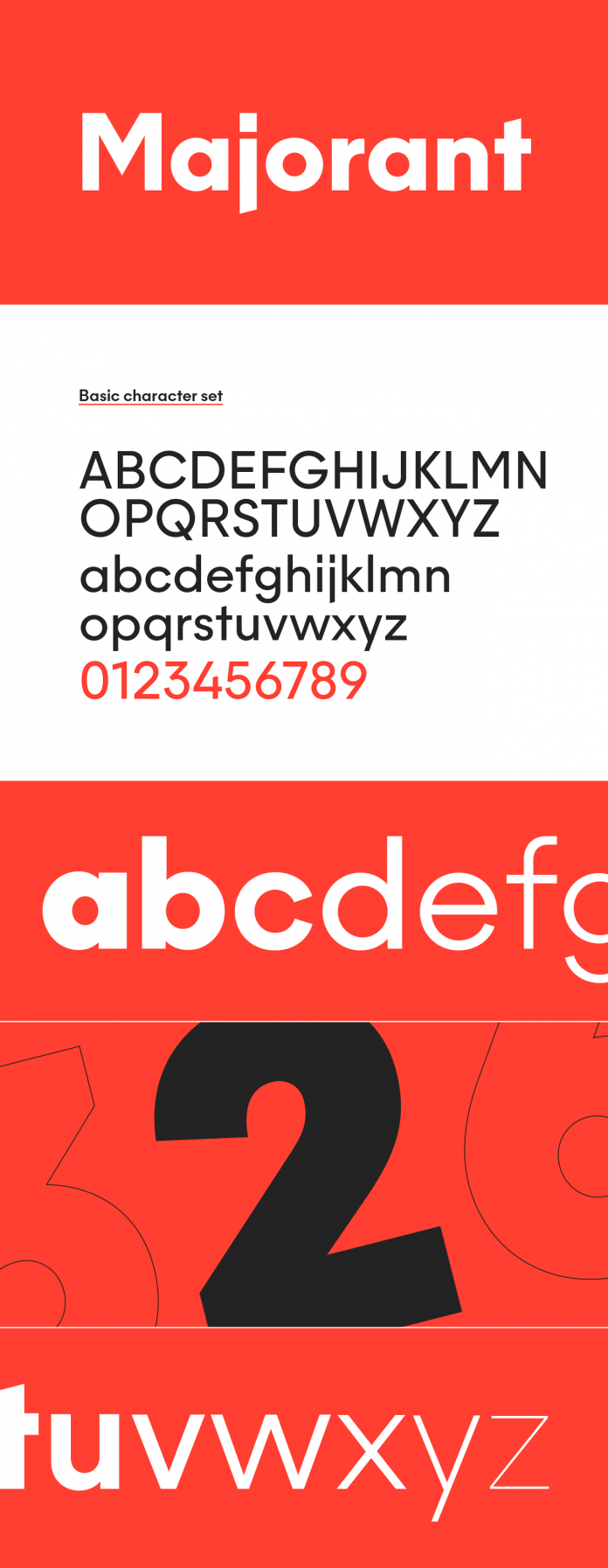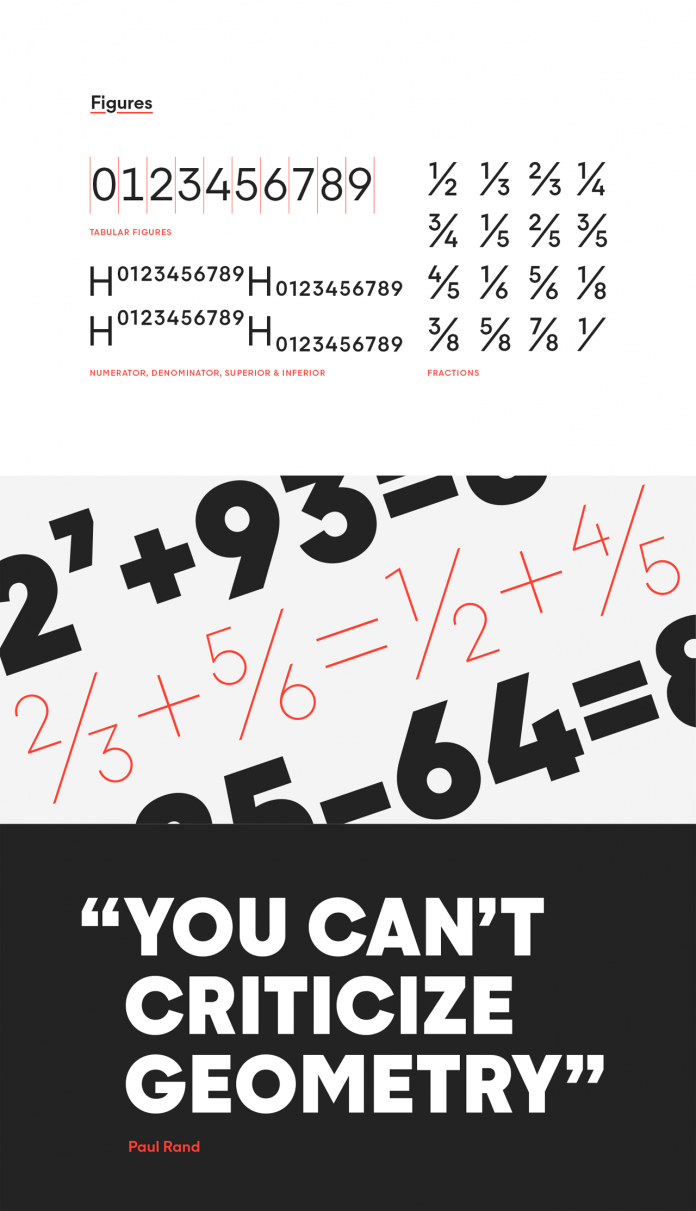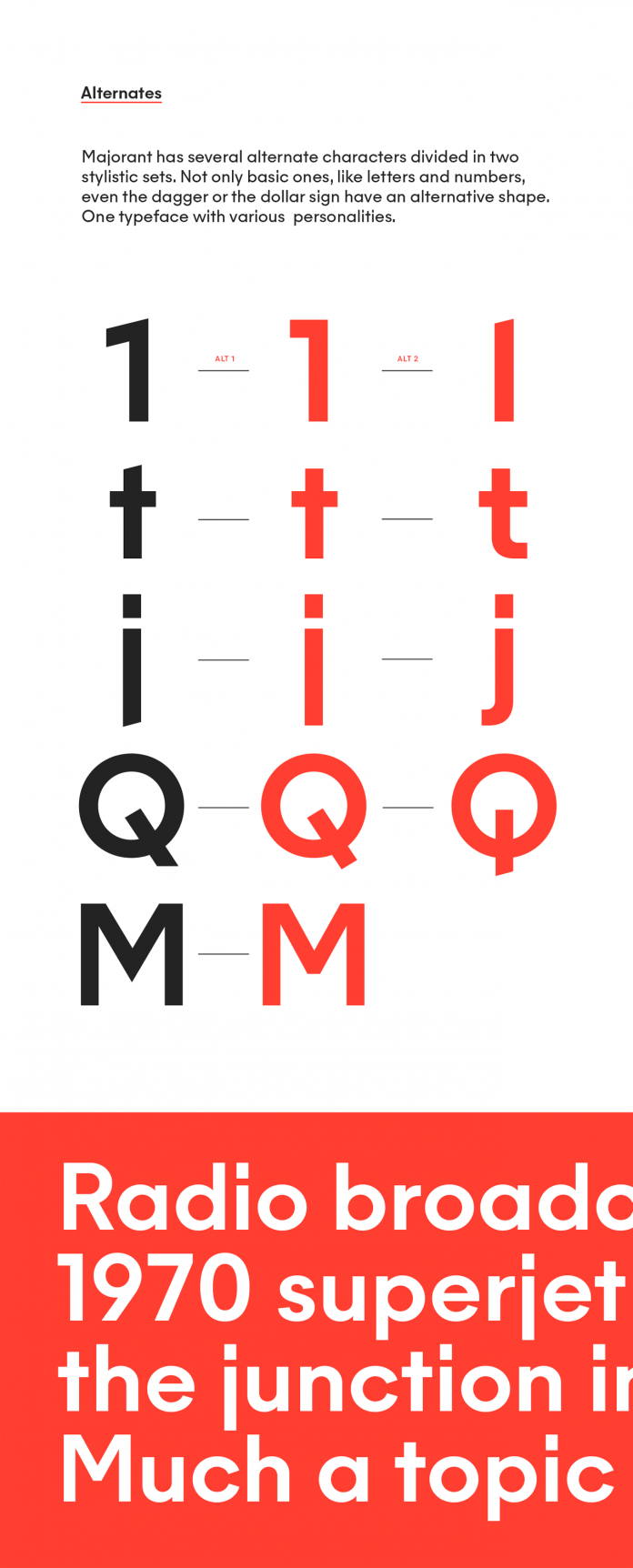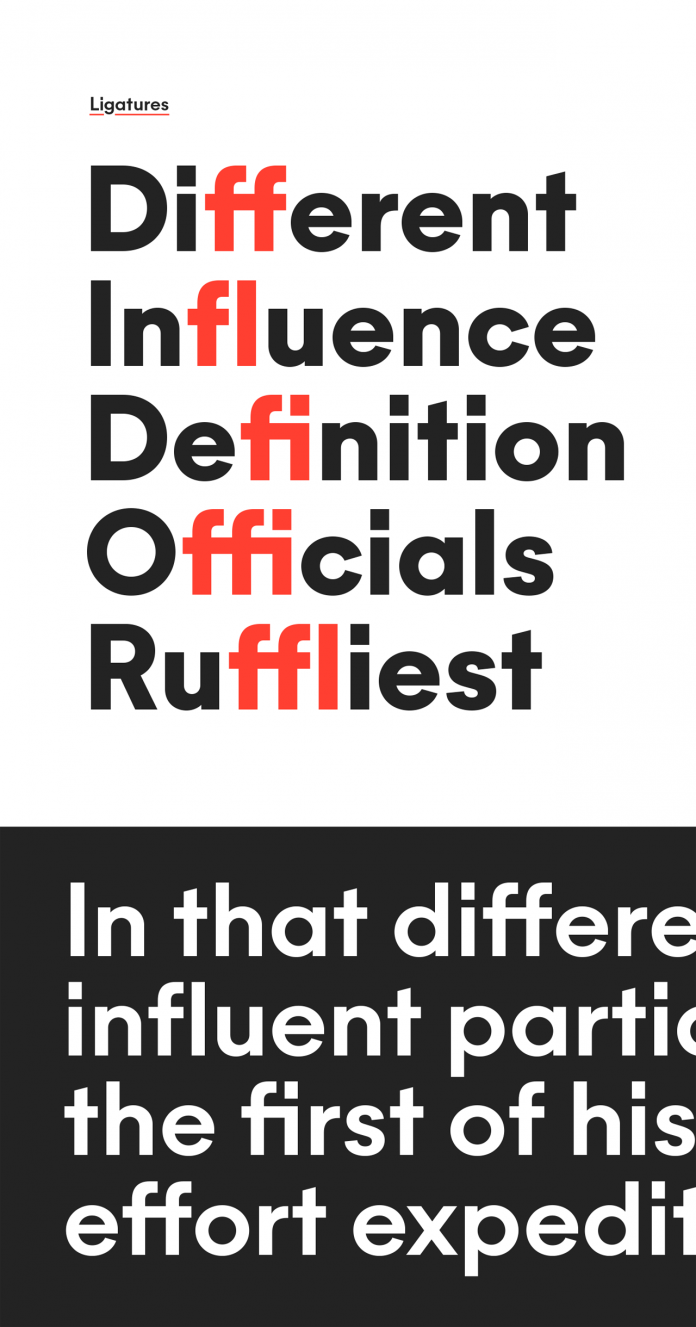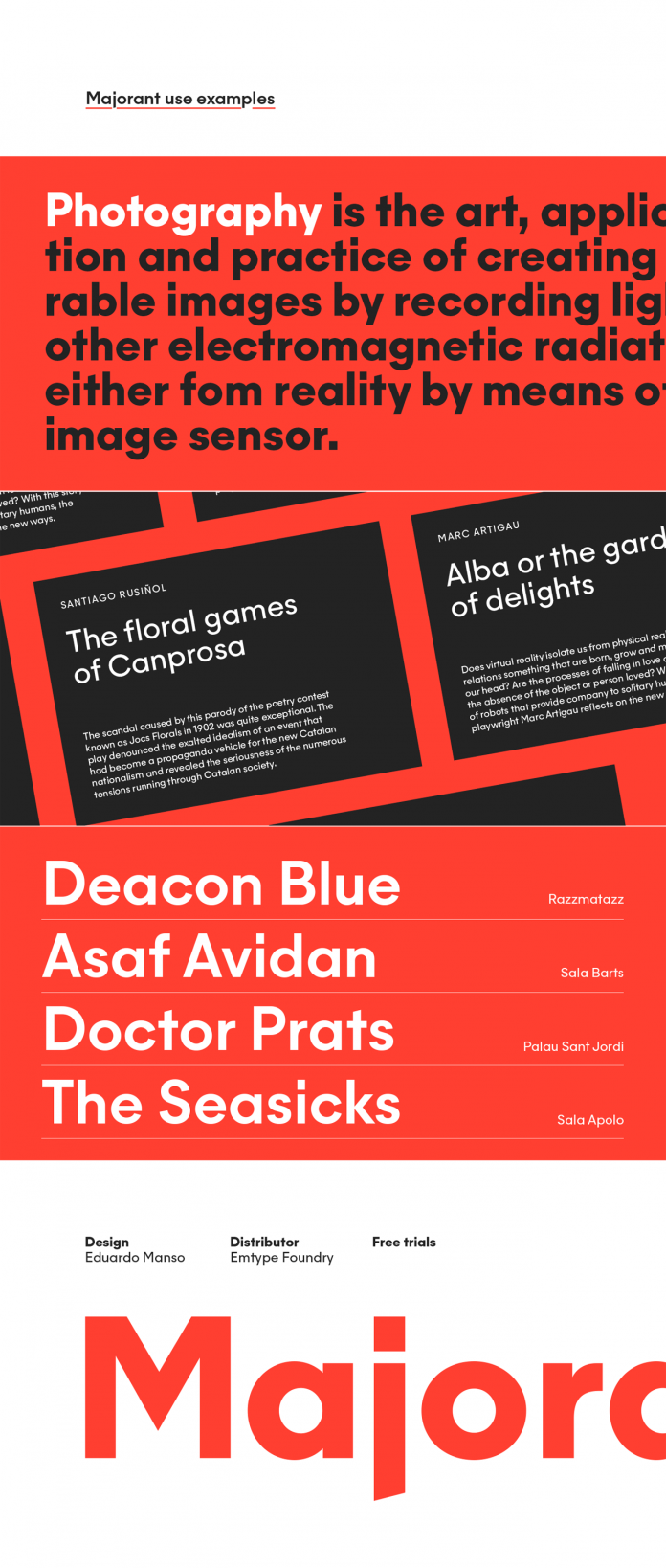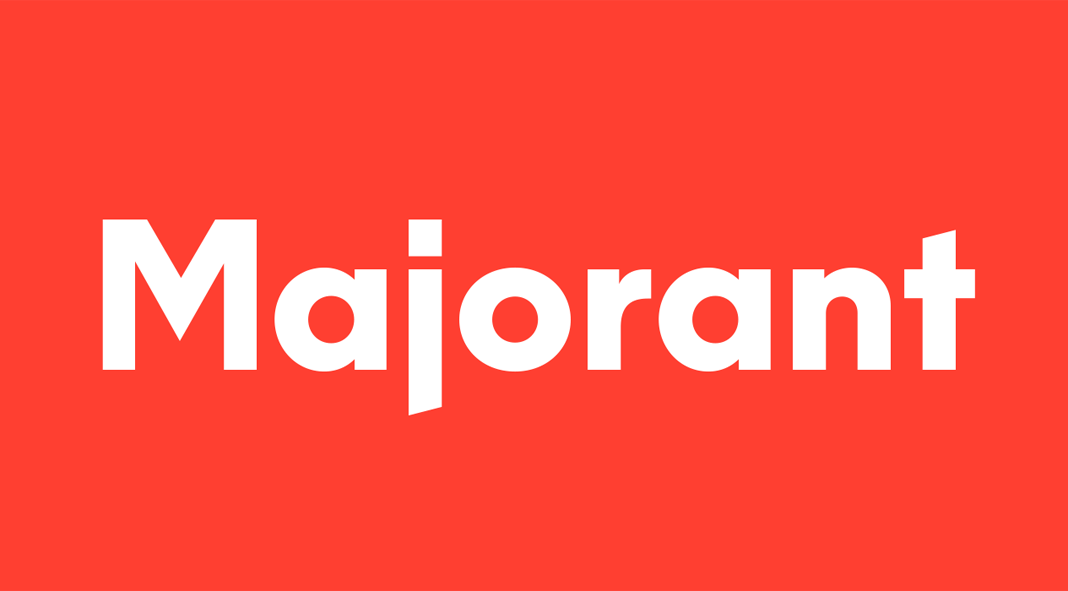
Majorant, a geometric sans serif font family interpreted from a contemporary point of view.
Designed by Eduardo Manso and published just recently in 2020 by Emtype Foundry, Majorant is a contemporary interpretation of a sans serif typeface. Equipped with a wide range of weights plus matching Italics, the Majorant font family can be used for different typographic needs including headlines and long text sections in print and web media. Majorant comes with several alternate character options, which gives the typeface multiple personalities. Its characteristic design offers simple geometric shapes with unique details. Just click on the following link to learn more about all OpenType features and buying options or have a look at the images below to see more of this unique and contemporary typeface.